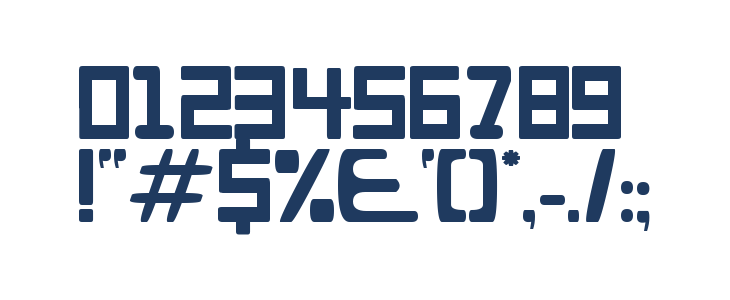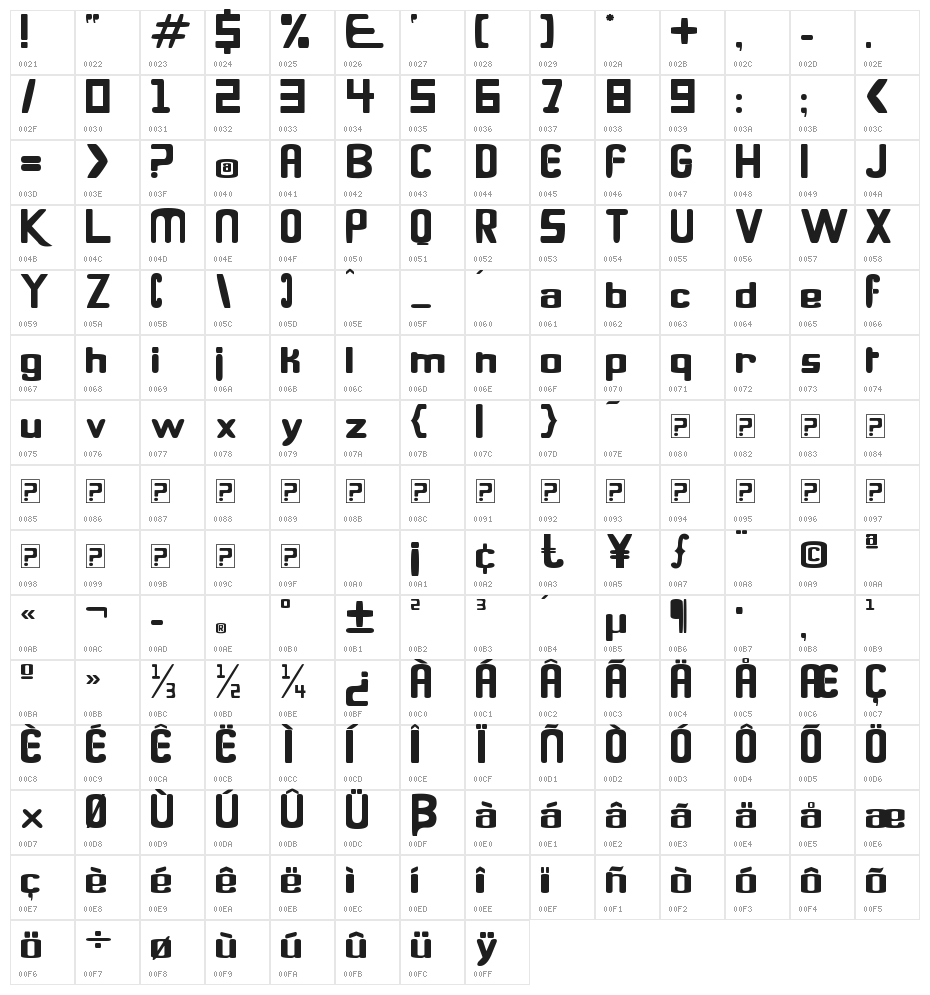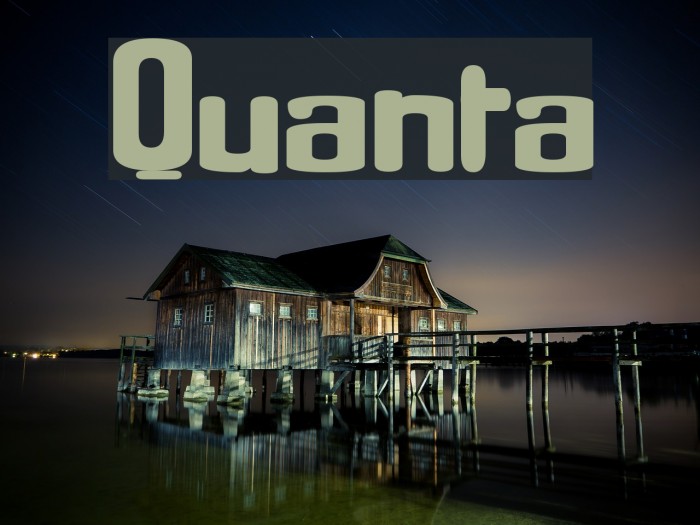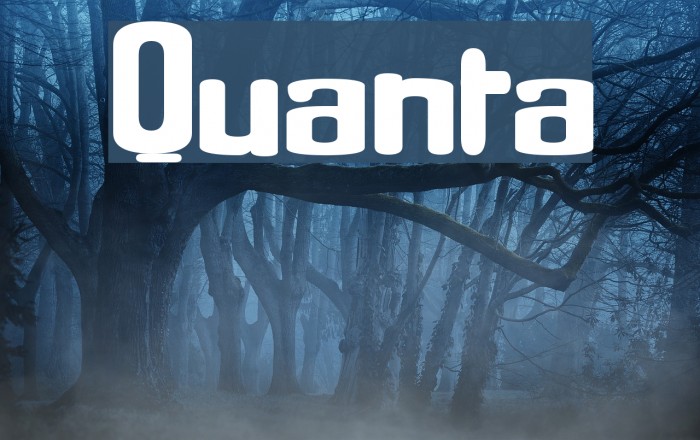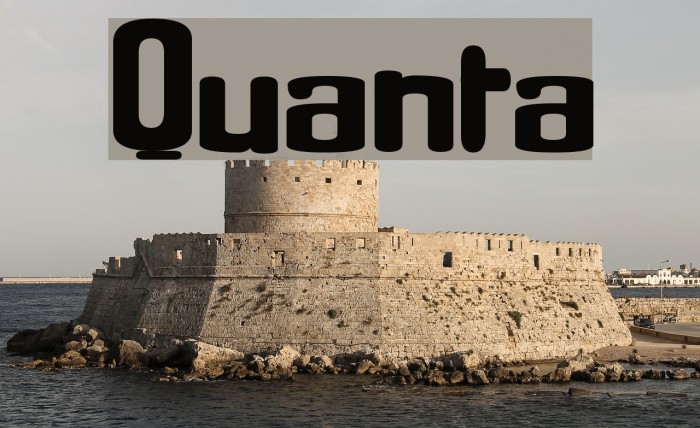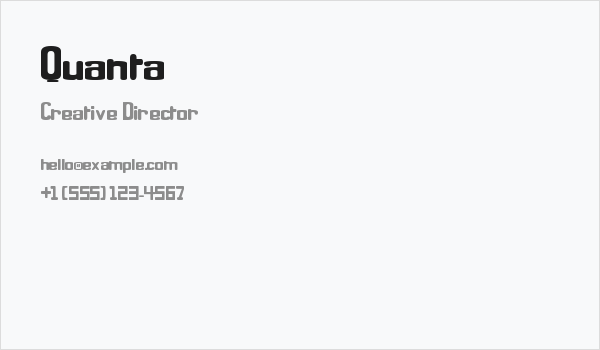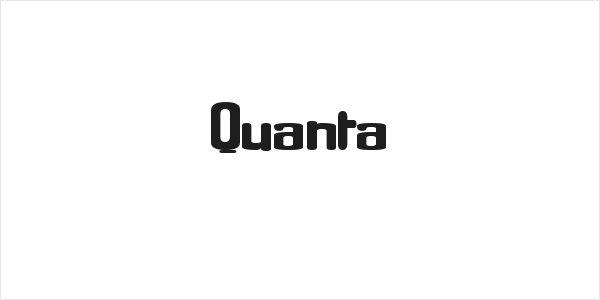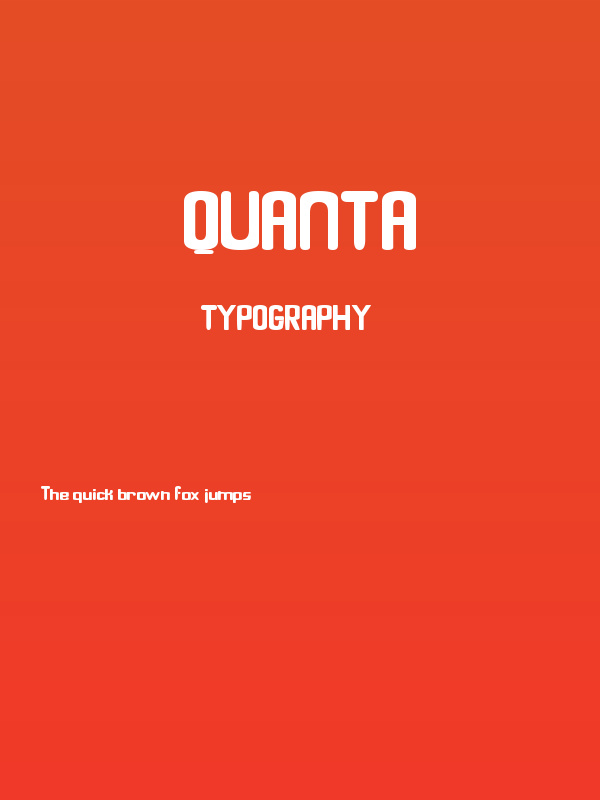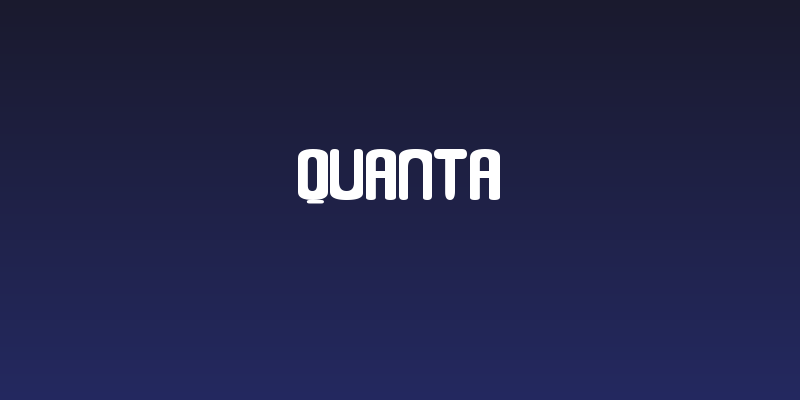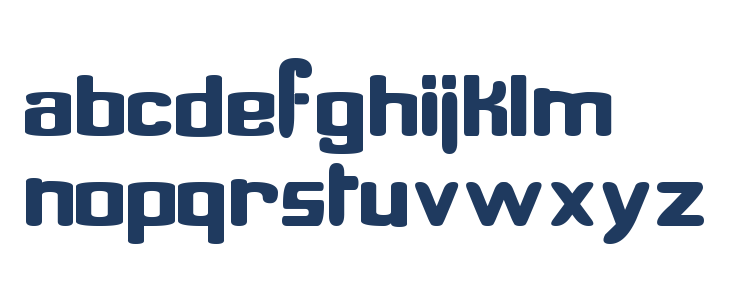
Quanta Font
Quanta Description
This font features a bold, modern design with a unique geometric style. The characters are constructed with rounded edges and a consistent stroke width, giving it a futuristic and tech-inspired appearance. The uppercase letters are tall and narrow, while the lowercase letters maintain a similar width, creating a cohesive look. Numbers and special characters follow the same design principles, ensuring uniformity across all glyphs. The font's distinct style makes it suitable for projects that require a contemporary and innovative touch.
| Proposed Projects | Ideal for tech branding, futuristic posters, digital interfaces, and innovative product packaging. |